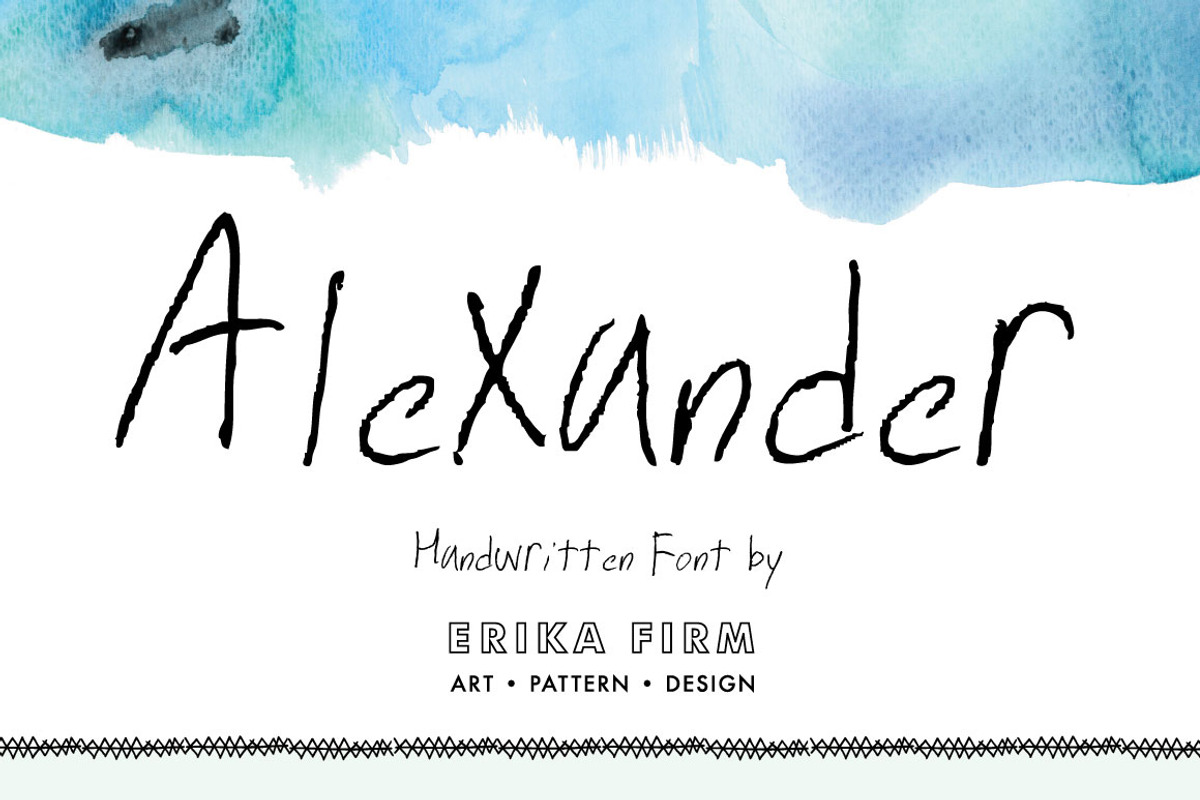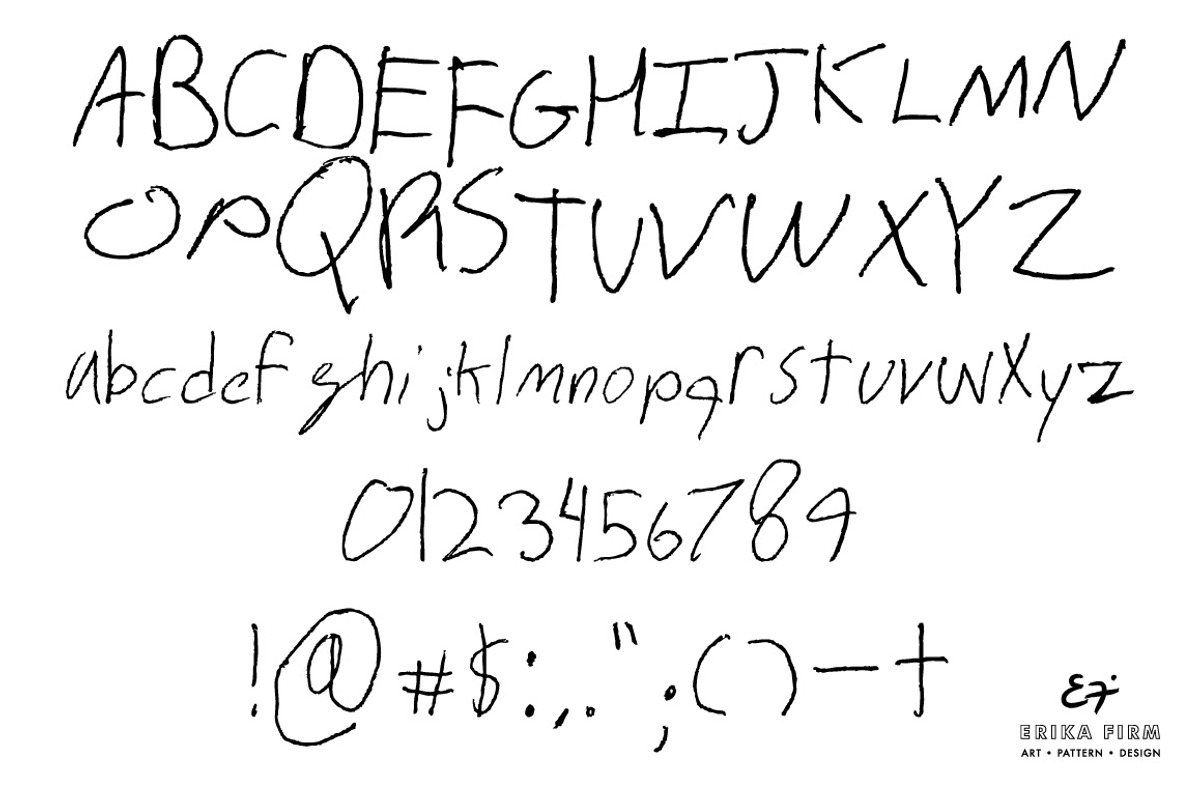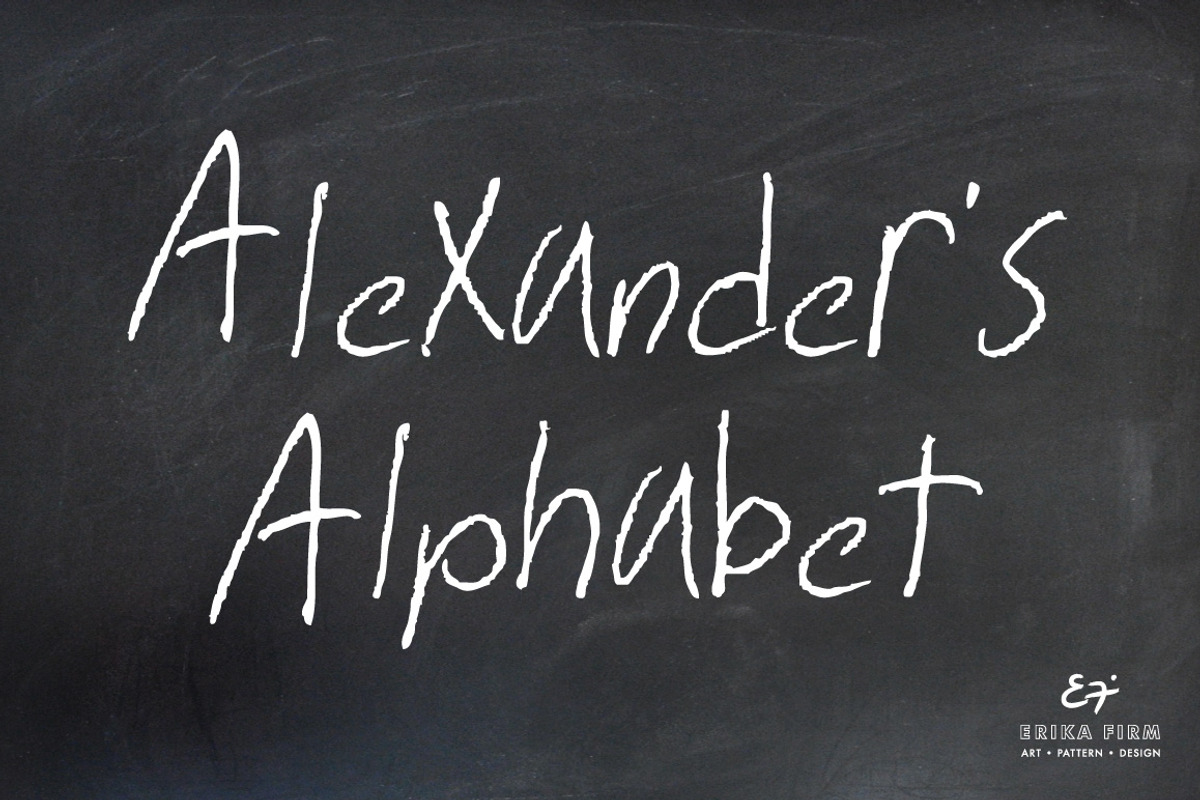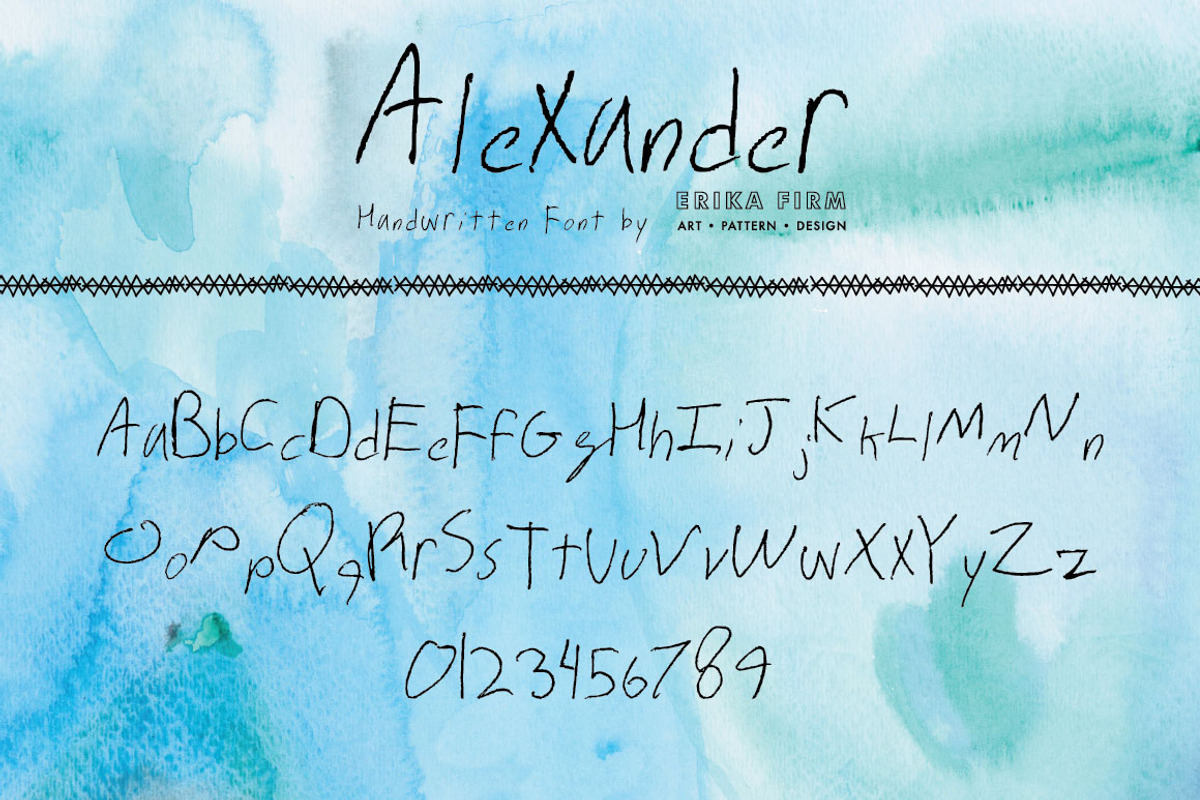
Alexander Handwritten Font
This font is a charming, childish handwritten font with varying x-height. It is inspired by my little one, who likes to write his homework as quickly as humanly possible. Alexander handwritten font is great to use for logos, notes, gift tags, etc. Download includes the .otf file.